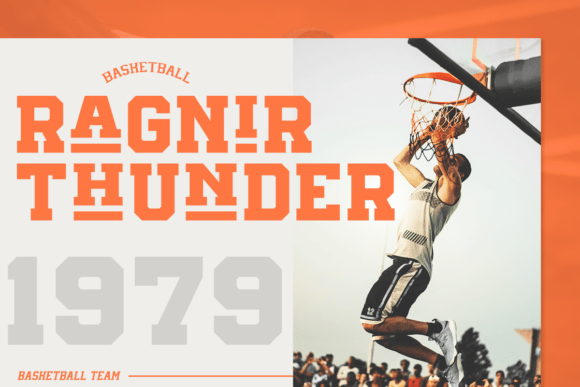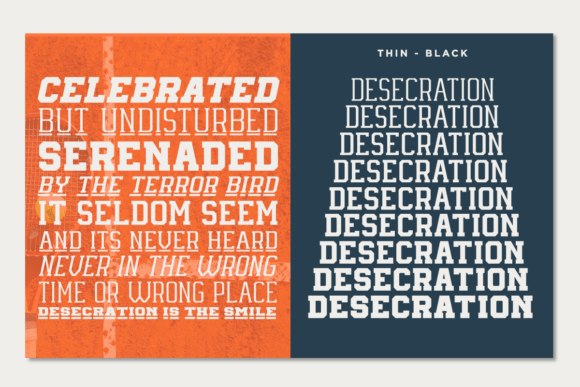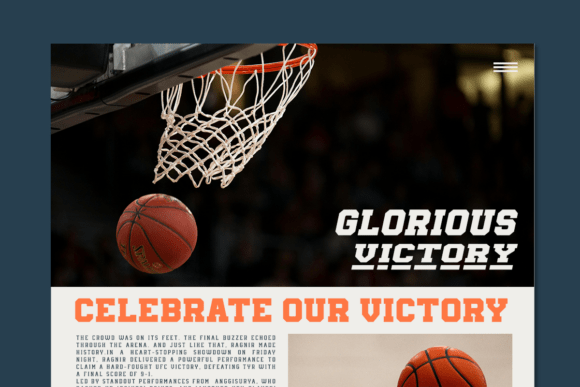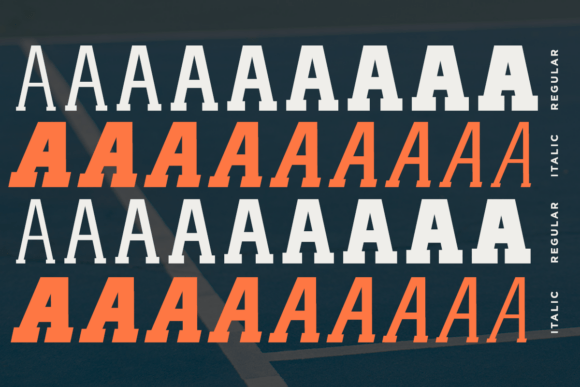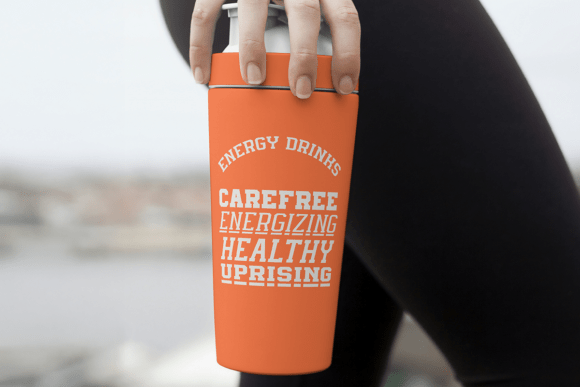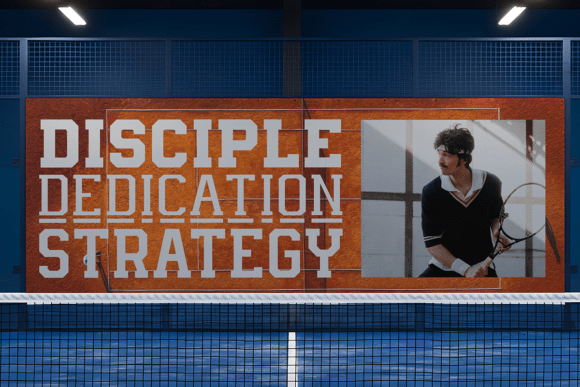
Introduction to Oud Range Font
Imagine you’re working on a high-impact creative project, and you need a font that can command attention without sacrificing clarity. You’re browsing through design resources, searching for the perfect match, and suddenly, you stumble upon Oud Range Font – a modern condensed slab serif font family that embodies the perfect blend of industrial power and sleek, space-saving precision.
As a designer, you know how valuable it is to have a versatile font family that can adapt to various design needs. With Oud Range Font, you get 9 weights, from light to bold italics, offering full flexibility for both digital and print design. Its compact structure ensures maximum impact even in tight spaces, while maintaining balance and legibility – making it perfect for editorial layouts, packaging, sports design, and dynamic logos.
Key Features of Oud Range Font
- High-quality design resource ideal for creative projects, with a unique blend of modern and traditional elements.
- Designed with a focus on versatility, suitable for use in a variety of contexts, from branding and marketing materials to digital art and graphics.
- Perfect for designers and artists seeking a unique and high-quality design resource to elevate their creative projects.
Honest Review: Oud Range Font
I recently had the chance to work with the Oud Range Font, and I must say it’s been a great addition to my design resources. This high-quality font is perfect for any creative project that requires a unique and elegant touch.
- ✨ High-quality design: The Oud Range Font has a very professional and sleek design that’s sure to elevate any project.
- ⚠️ Limited language support: The Oud Range Font is currently only available in a few languages, which might be a limitation for some designers.
- ⚠️ Not ideal for small text: Due to its elegant design, the Oud Range Font might not be the best choice for small text sizes.
Overall, I’m very impressed with the Oud Range Font. It’s a great addition to any designer’s toolkit, and its high-quality design and transparent background make it a versatile choice for any creative project. While it may have a few limitations, I believe the benefits far outweigh the drawbacks.
The Oud Range Font is a versatile and high-quality design resource ideal for various creative projects. With its unique style and transparent background, this font can be used to add a touch of elegance and sophistication to your designs.
For the best results, use the Oud Range Font in combination with a high-contrast color scheme and a clean, minimalist design. Experiment with different font sizes and styles to create a visually appealing design.
The Oud Range Font is ideal for use in a variety of creative projects, including:
- Business cards and letterheads.
- Brochures and flyers.